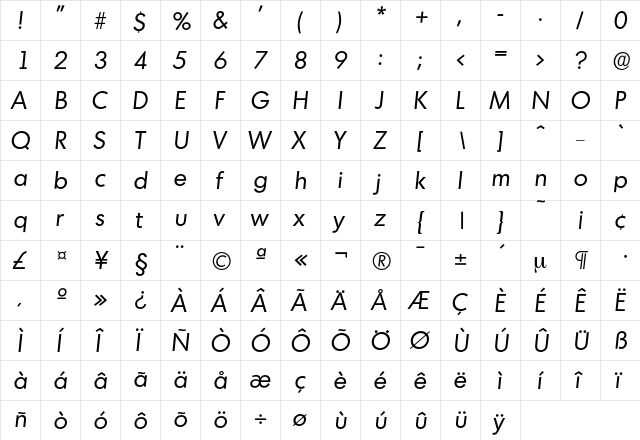
Montreal-RegularIta Regular
Design Context for Montreal-RegularIta Typeface
Montreal-RegularIta takes a measured approach to typography — its balanced proportions and neutral character make it a reliable workhorse for both digital and print work.
Pro Tip: Use Montreal-RegularIta in both headline and body roles to test its range before committing to a single application.